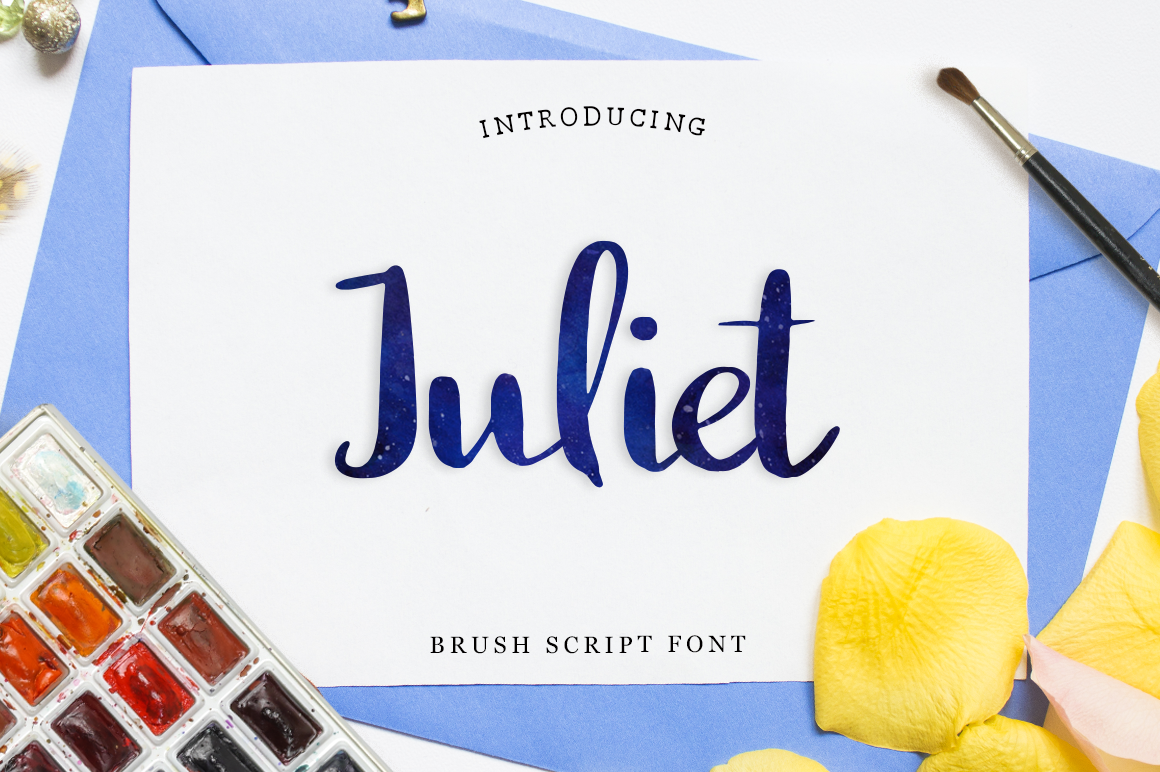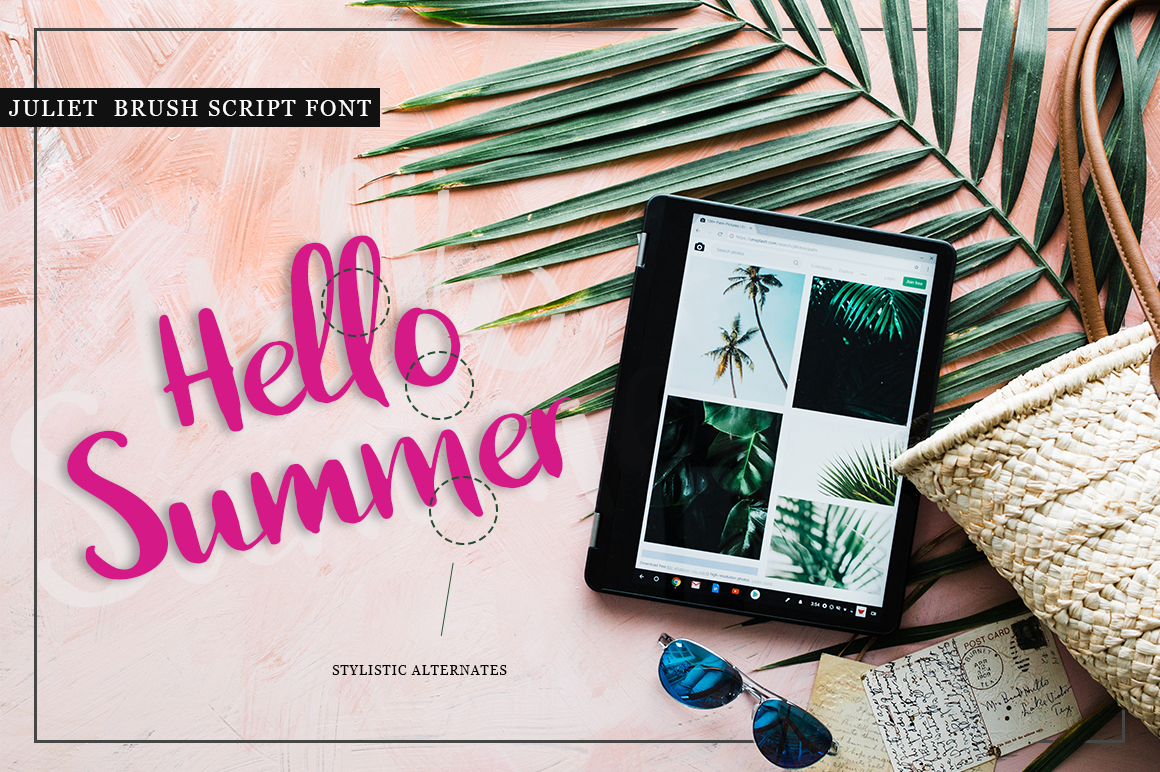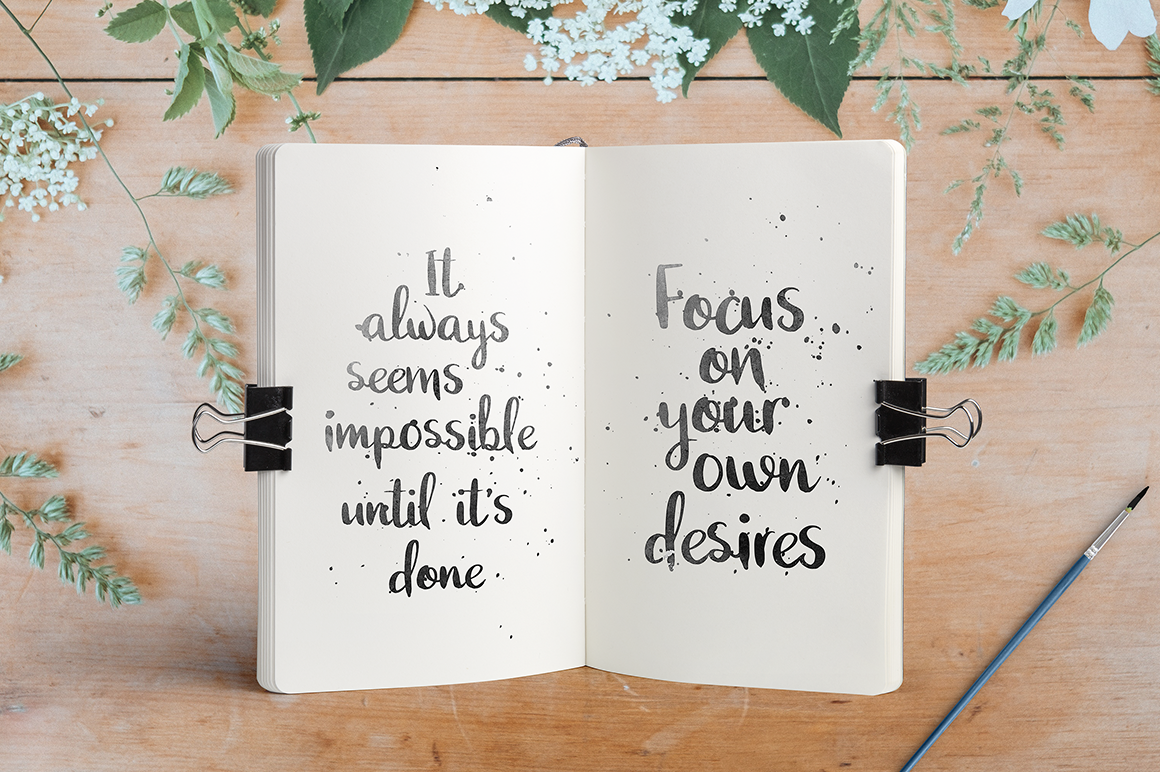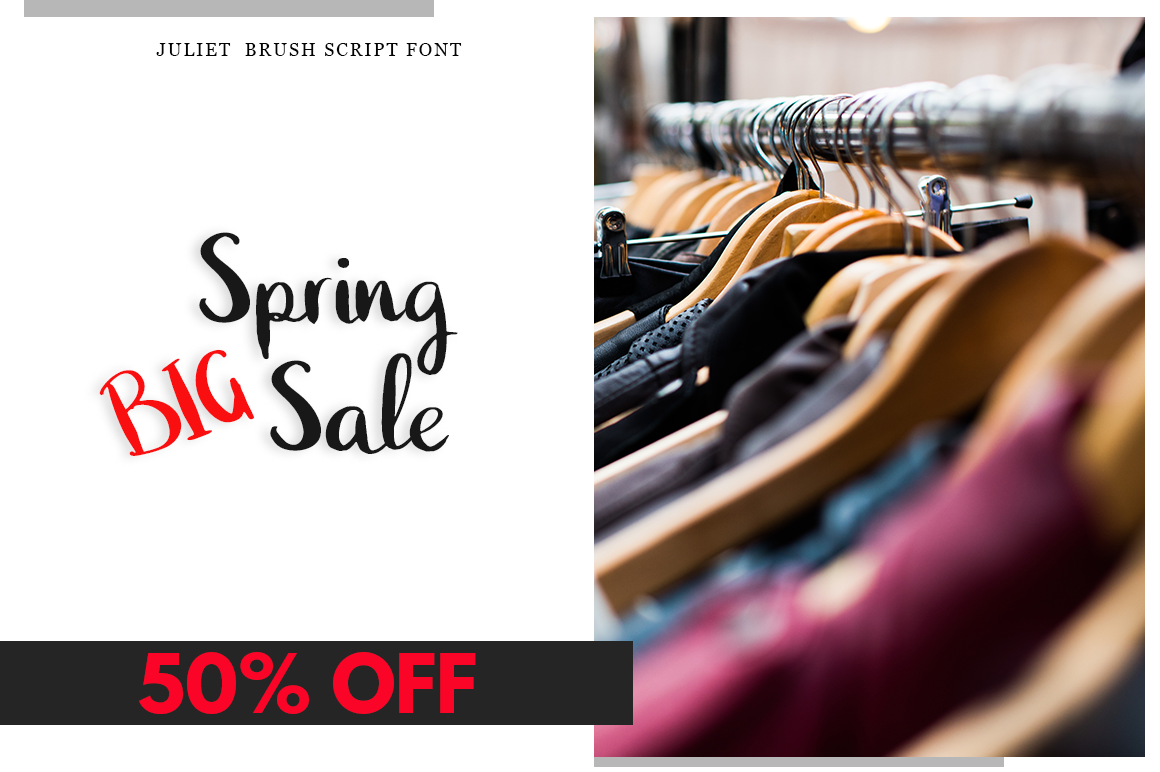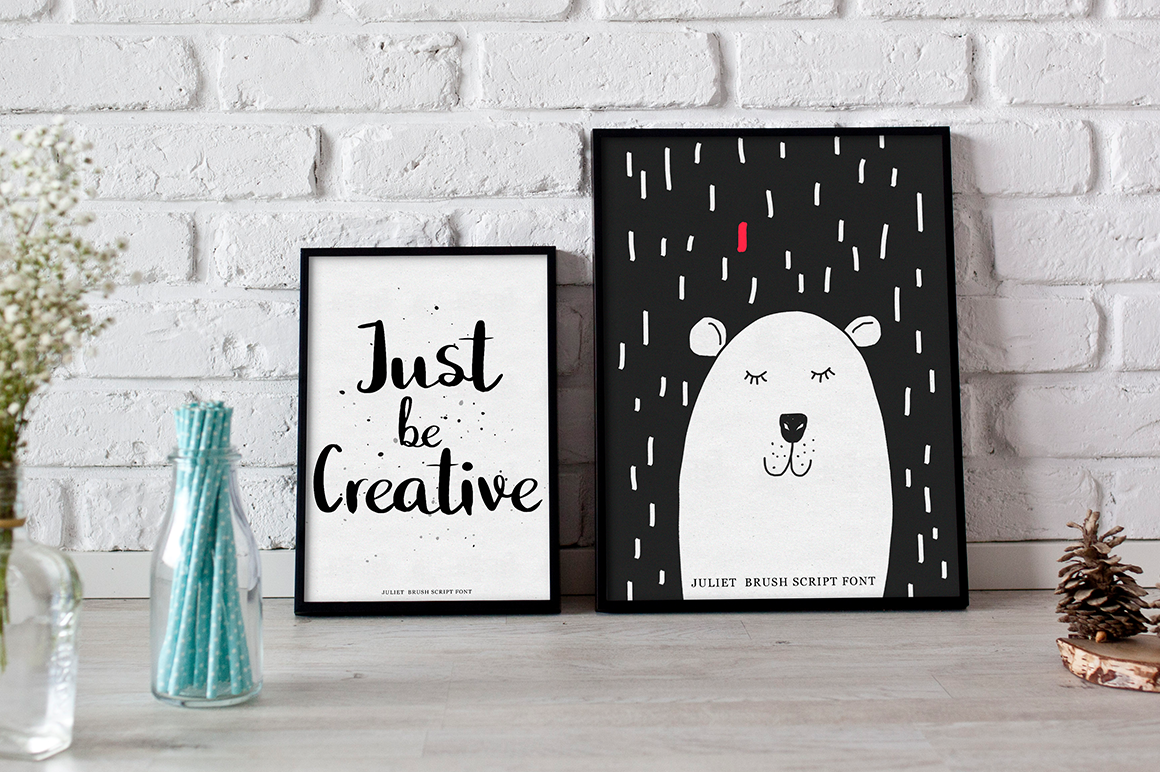
Juliet Font
Juliet is a gorgeous, hand brushed font that is both modern and relaxed for a unique appeal. This is a font that is entirely on trend, and can work well in invitationals and headlines.